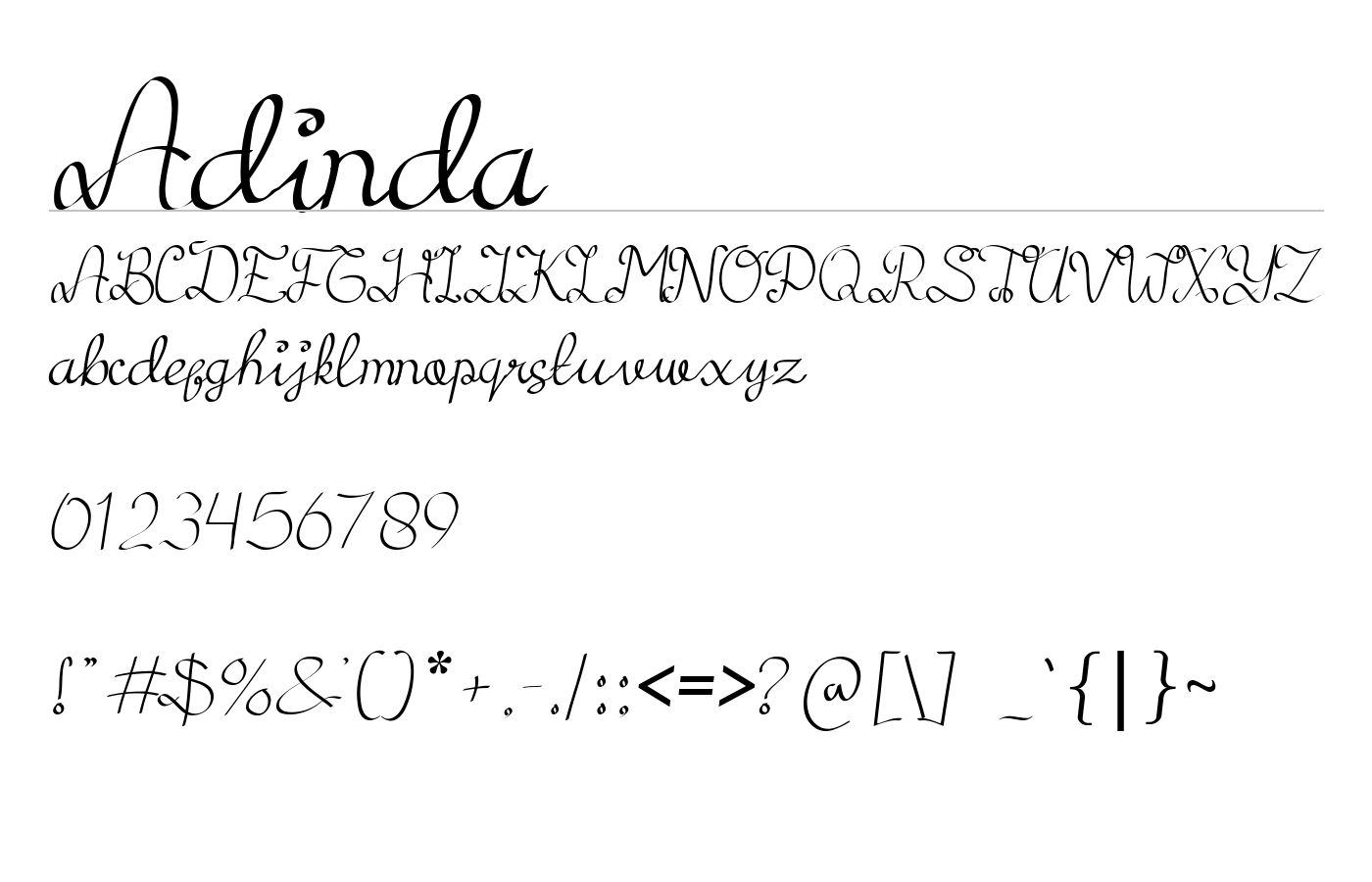
Adinda is an elegant, thin script font characterized by its delicate, flowing strokes and graceful curves that give it a hand-drawn, whimsical feel. Its light weight and airy spacing make it ideal for invitations, greeting cards, and branding projects where a sophisticated, artistic touch is desired. This font works best in decorative uses, adding charm and personality without overwhelming the design.
Adinda Font